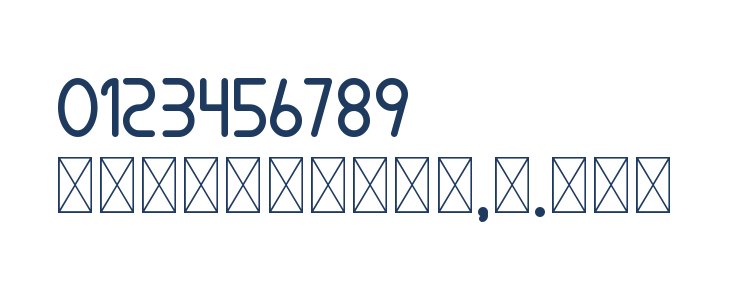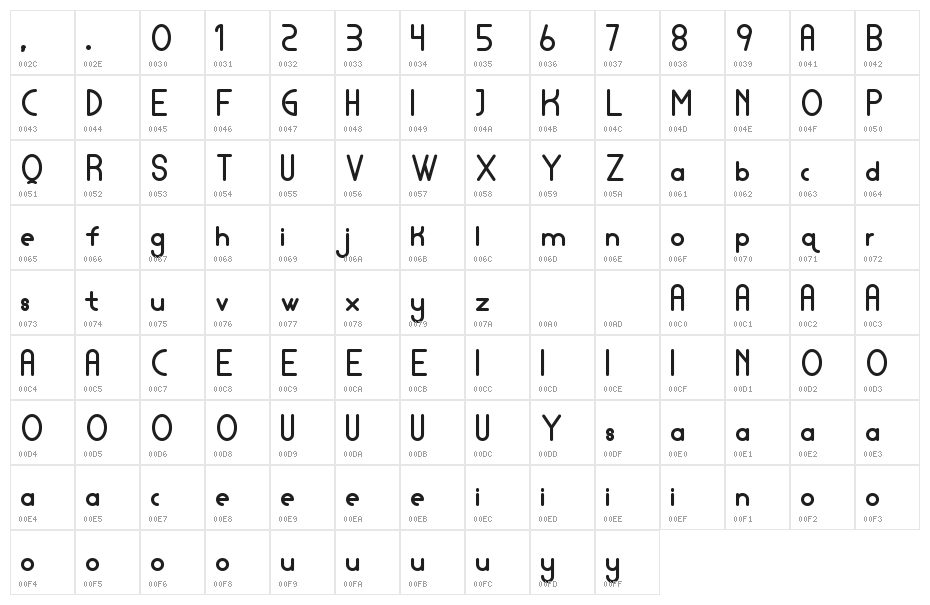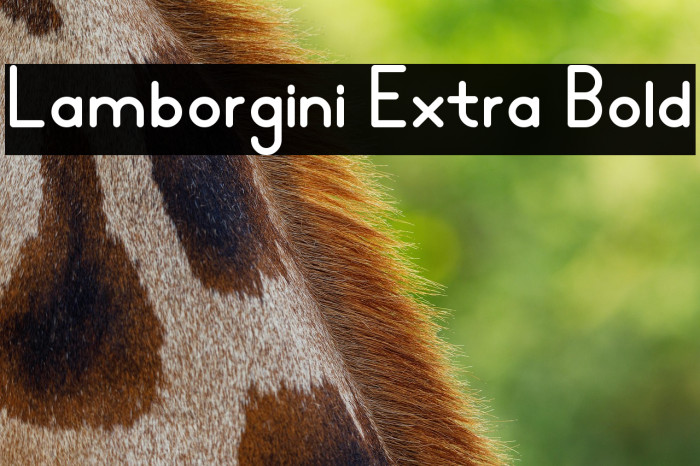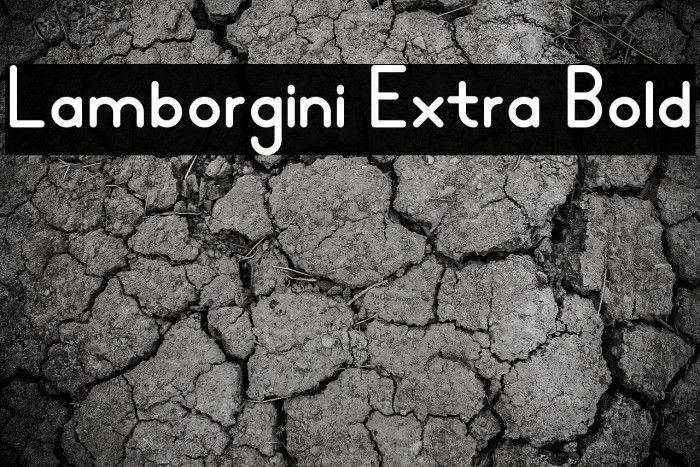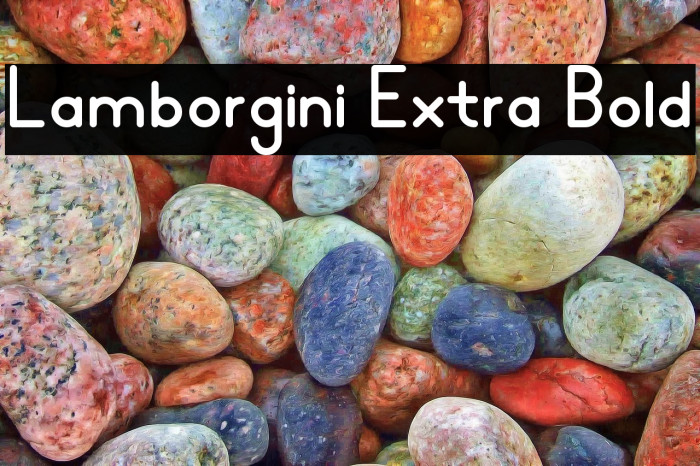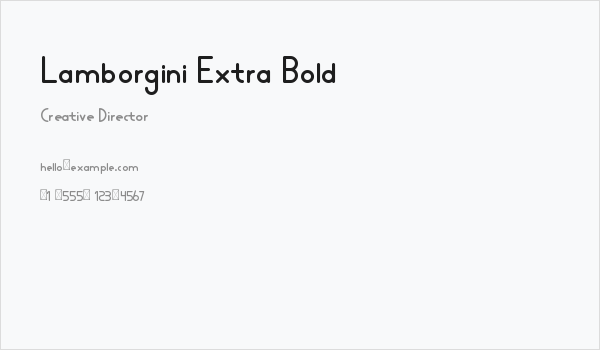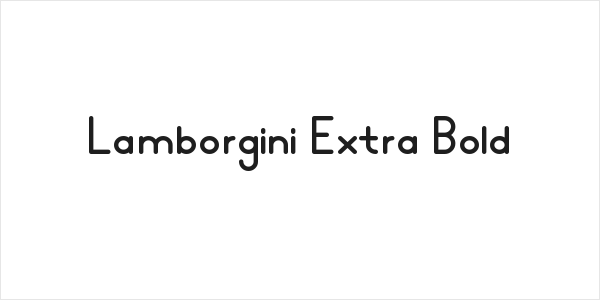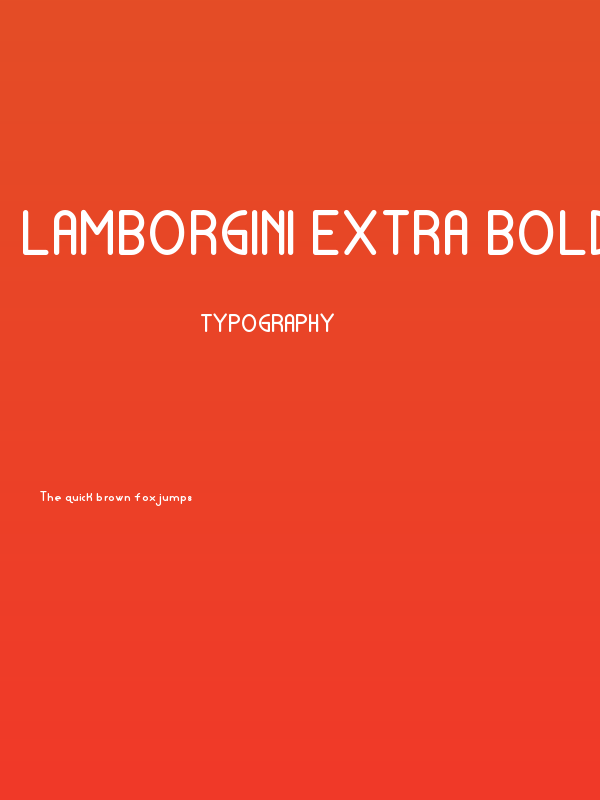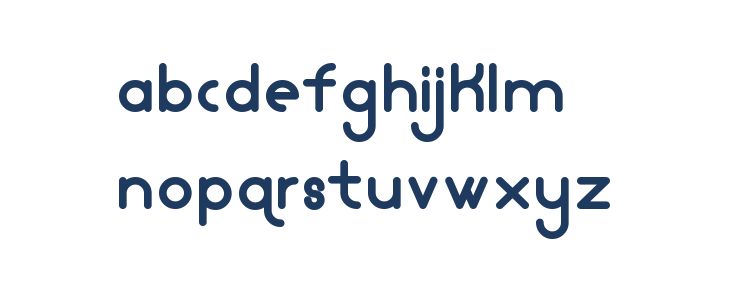
Lamborgini Extra Bold Font
Lamborgini Extra Bold Description
This font features a playful and rounded design, characterized by its smooth curves and uniform stroke width. The letters have a consistent and bold appearance, making them highly legible and visually appealing. The uppercase and lowercase letters maintain a harmonious balance, with rounded edges that give a friendly and approachable feel. The numerals are clear and distinct, matching the overall style of the alphabet. This font's unique style is further accentuated by its rounded terminals, which add a touch of modernity and softness. It is versatile enough to be used in various design contexts, from digital to print media.
| Proposed Projects | Ideal for children's books, playful branding, posters, and digital media. |